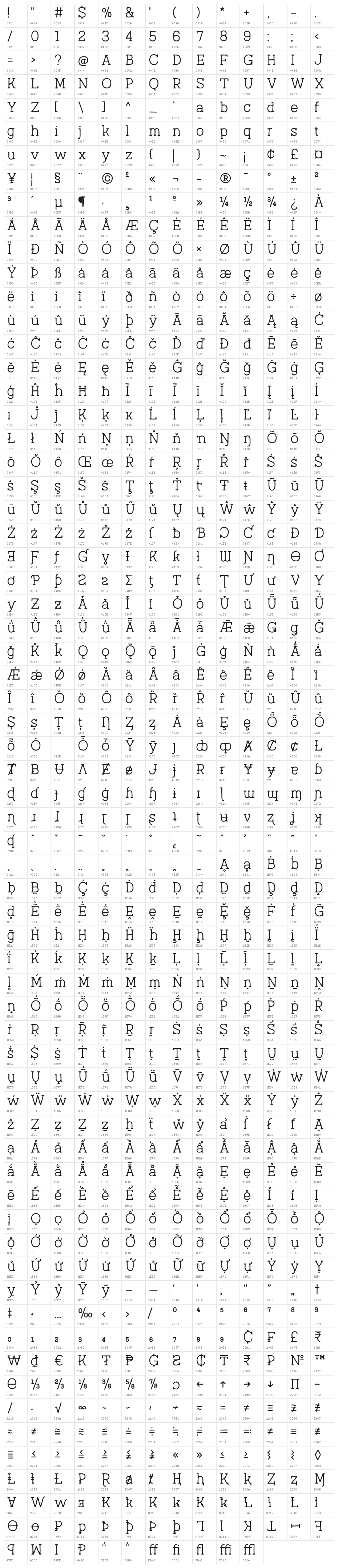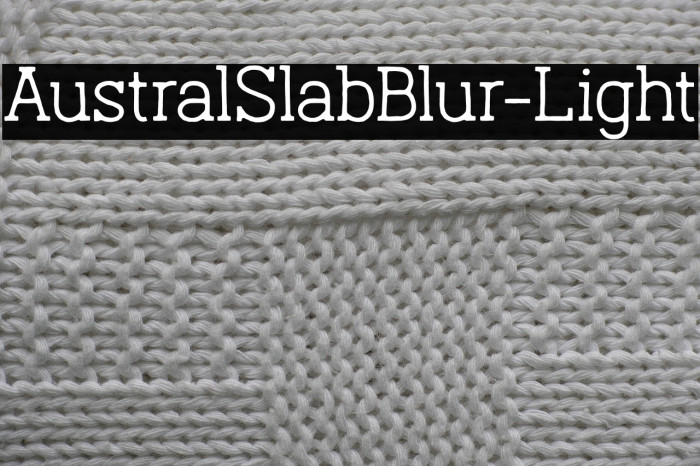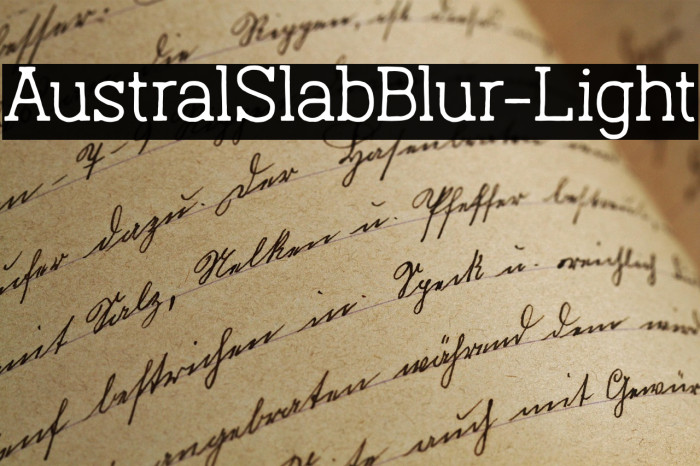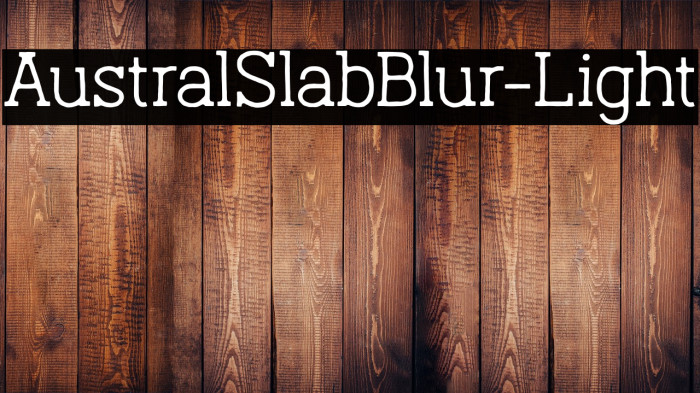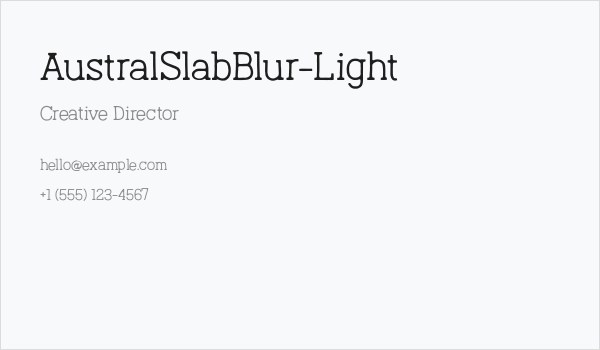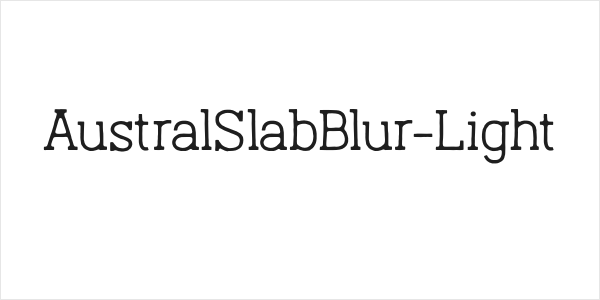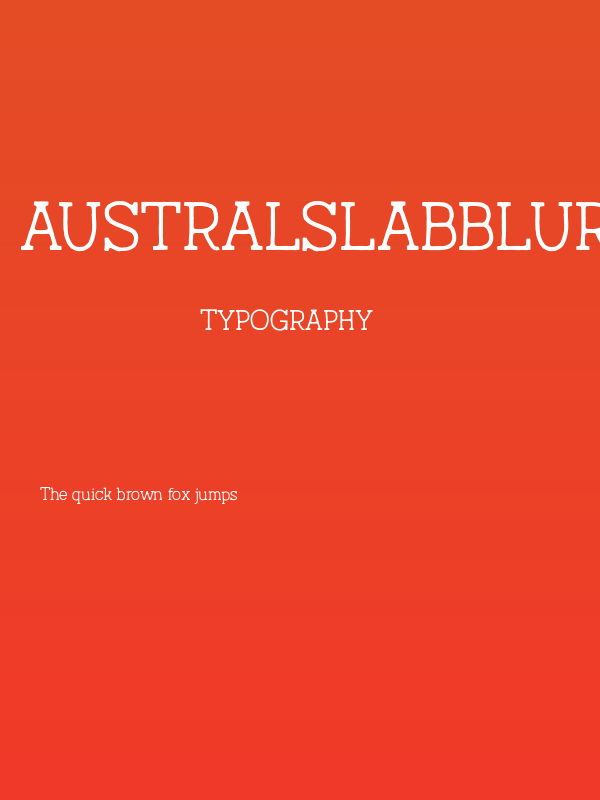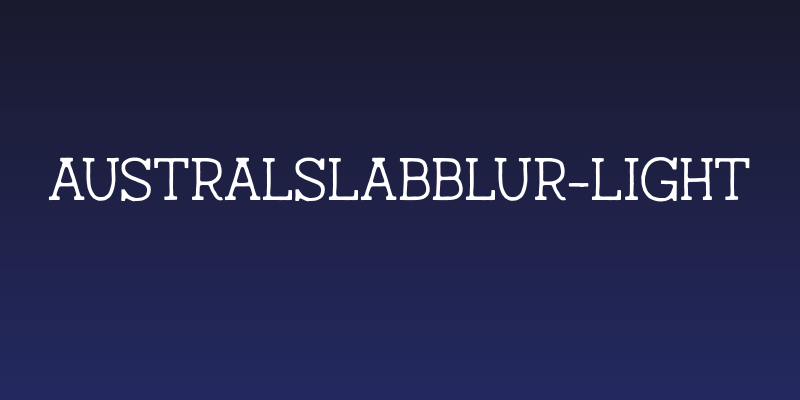
AustralSlabBlur-Light Font
AustralSlabBlur-Light Description
This font features a distinctive slab serif style with a slightly blurred effect, giving it a unique and approachable appearance. The characters are well-defined with moderate stroke contrast, providing a balance between readability and style. The uppercase letters are bold and commanding, while the lowercase letters maintain a consistent flow, enhancing the font's versatility. The numerals are clear and legible, making them suitable for various applications. Special characters are included, maintaining the font's cohesive design. This font's blend of traditional slab serif elements with a modern twist makes it suitable for a wide range of design projects.
| Use Case | Headlines, Logos, Editorial design |
| Proposed Projects | Ideal for branding, editorial design, posters, and web design projects that require a distinctive yet readable typeface. |